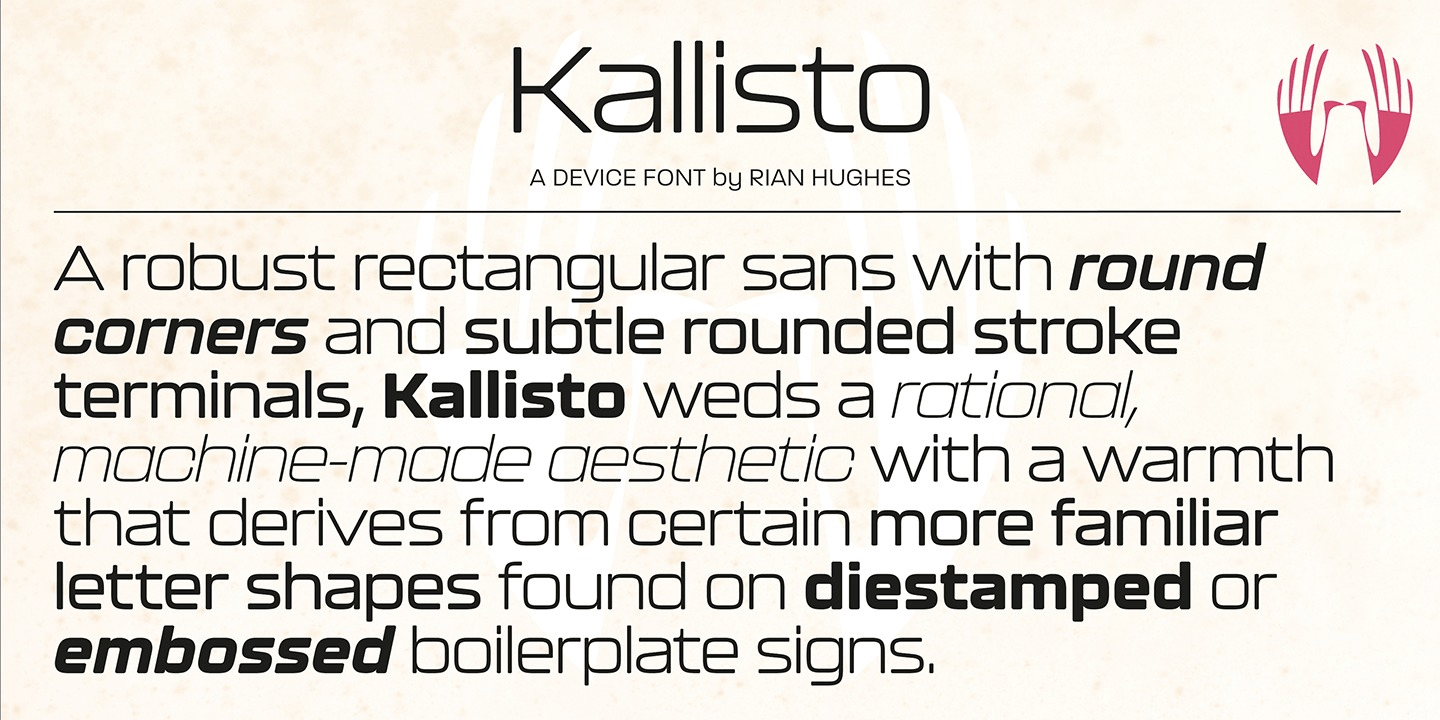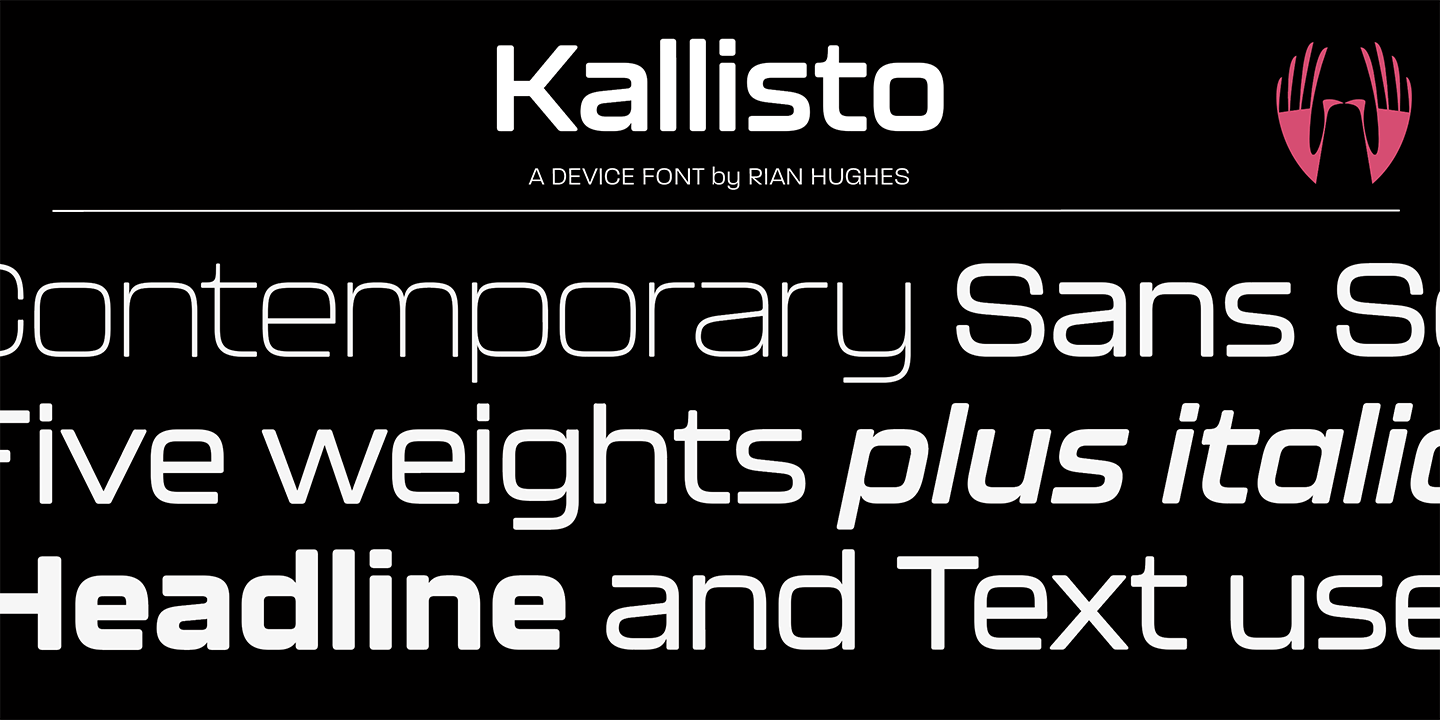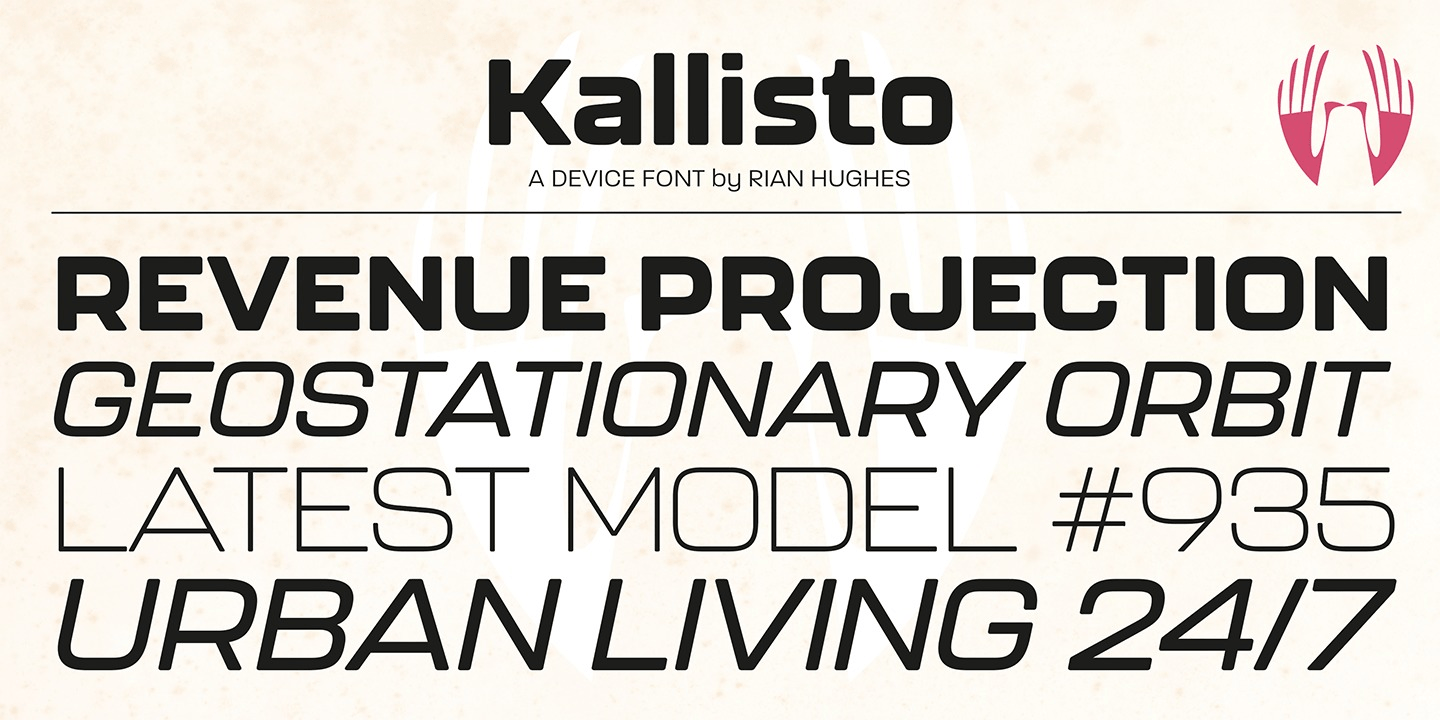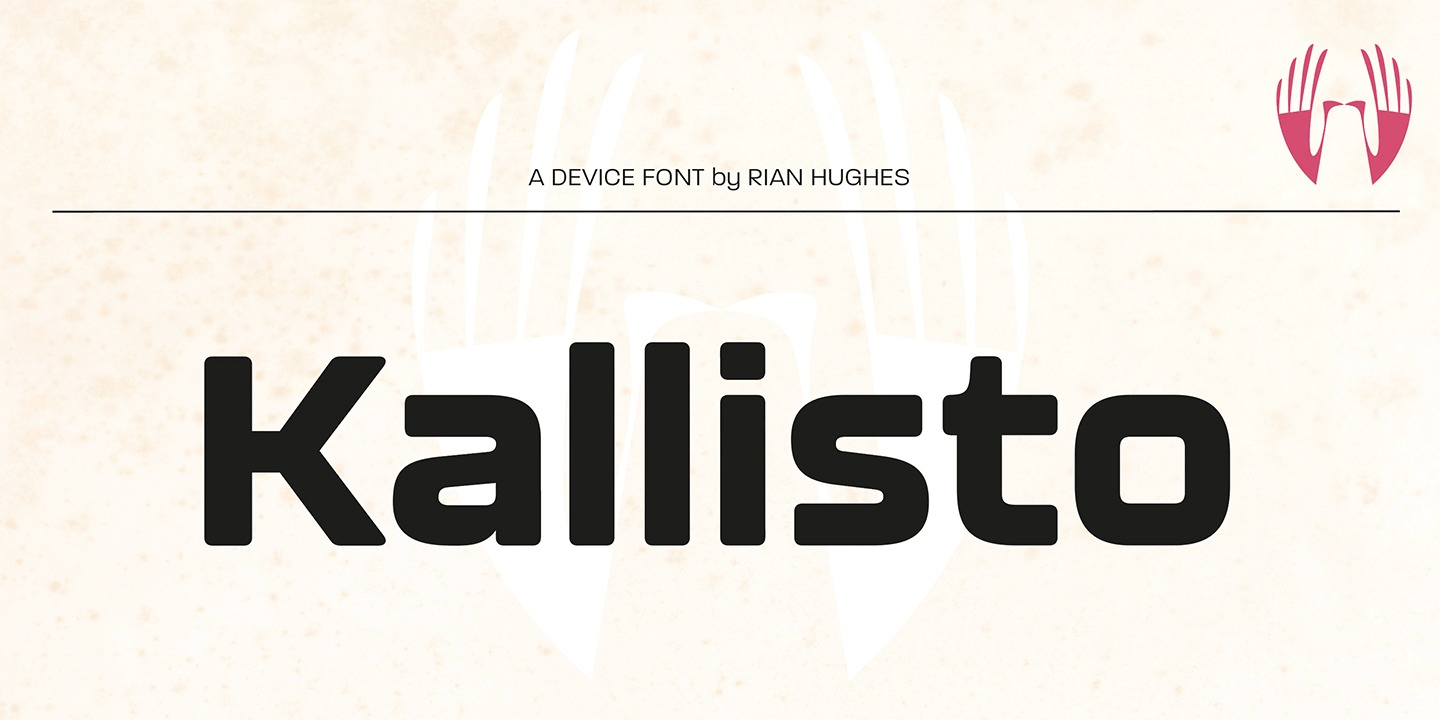
Kallisto
About Kallisto
A robust rectangular sans with round corners and subtle rounded stroke terminals, Kallisto weds a rational, machine-made aesthetic with a certain warmth that derives from more familiar letter shapes found on diestamped or embossed boilerplate signs.